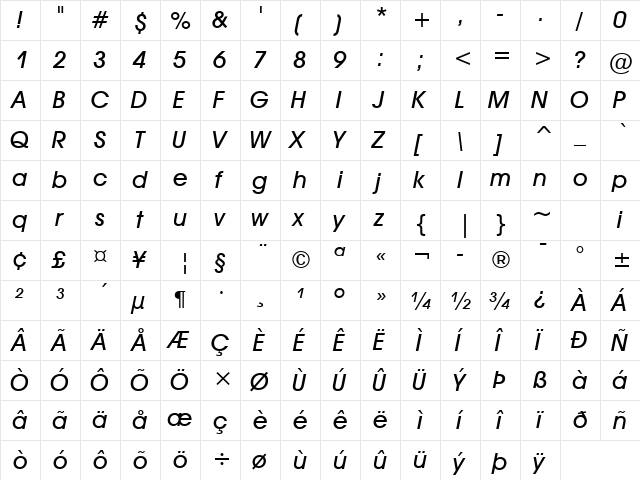
AvantGarde Md BT Medium Oblique
Design Context for AvantGarde Md BT Typeface
AvantGarde Md BT takes a measured approach to typography — its balanced proportions and neutral character make it a reliable workhorse for both digital and print work. The slanted form adds forward momentum and visual energy.
Pro Tip: Try AvantGarde Md BT for annotation and caption copy alongside an upright companion — the contrast in angle creates a dynamic but ordered typographic system.